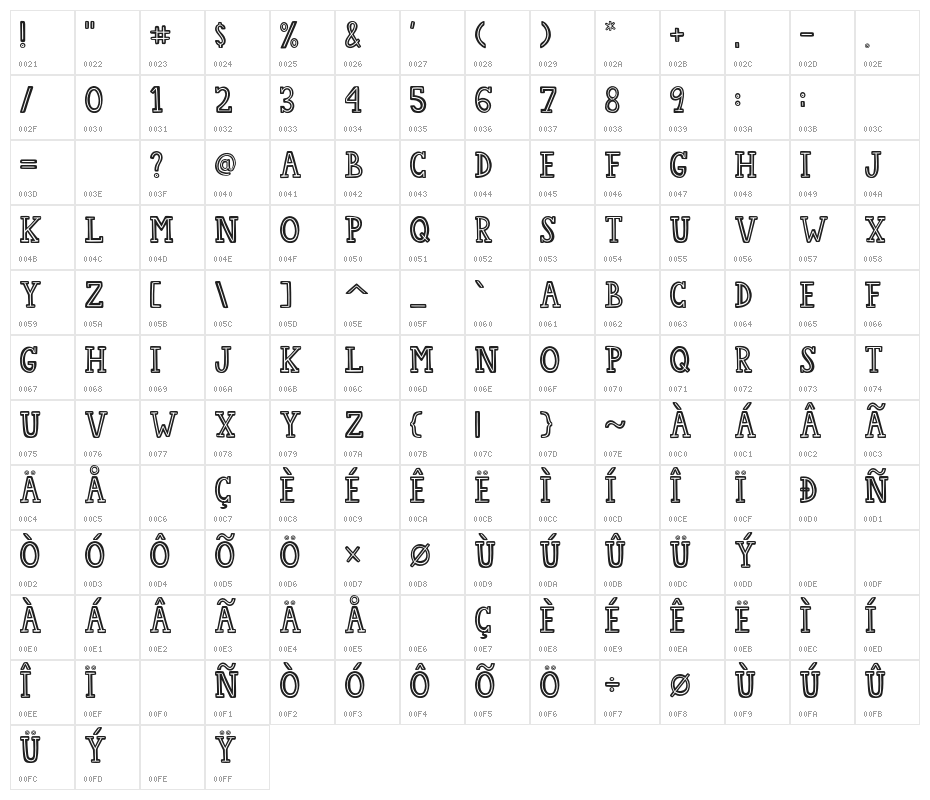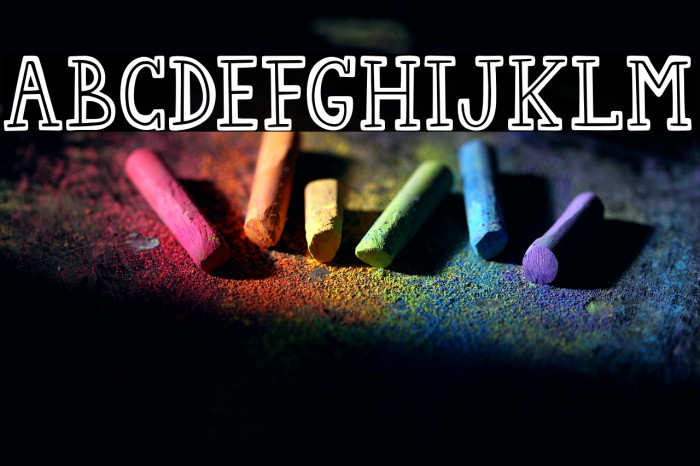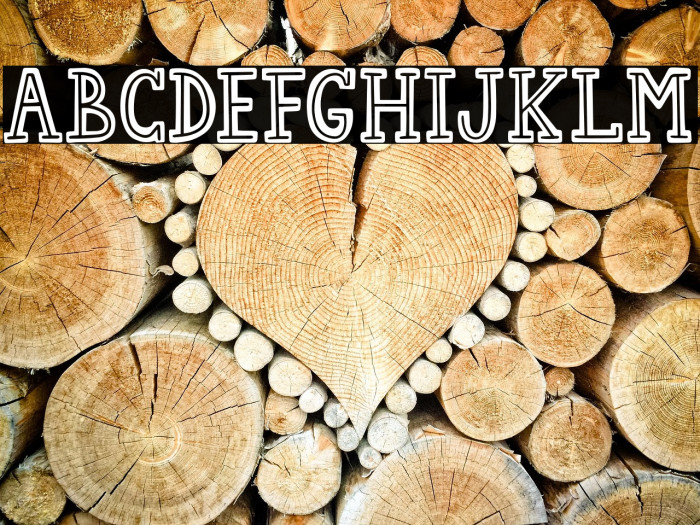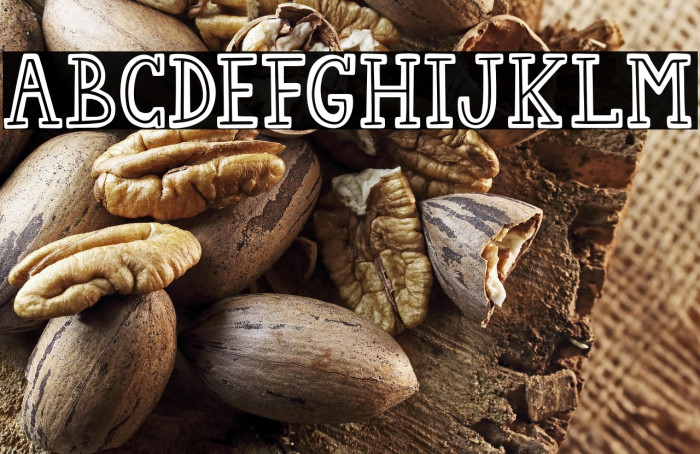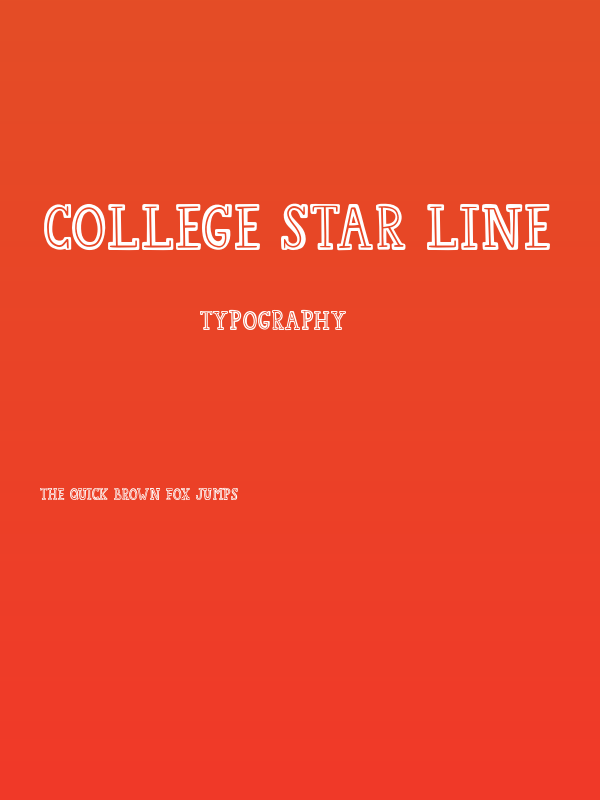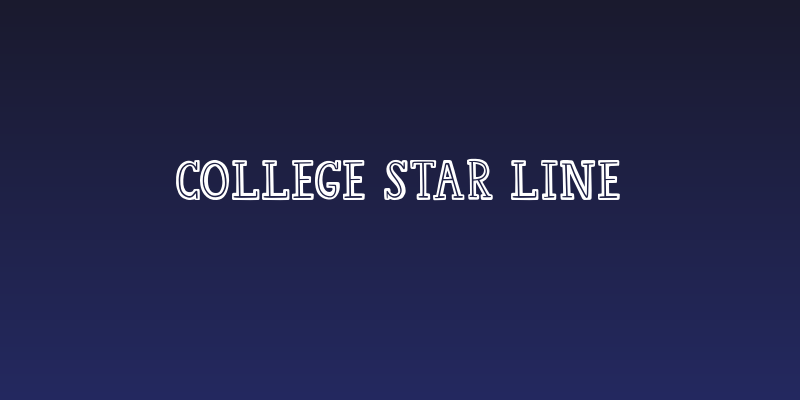
College Star Line Font
College Star Line Description
This font features a bold, collegiate style with a distinct outline that gives each character a strong, impactful presence. The uppercase letters are uniform in height and width, creating a cohesive and structured look. The numbers and special characters maintain the same bold outline, ensuring consistency across all elements. The font's design is reminiscent of traditional varsity or sports team lettering, making it ideal for projects that require a sense of strength and tradition.
| Proposed Projects | Perfect for sports team logos, school branding, event posters, and merchandise designs. |